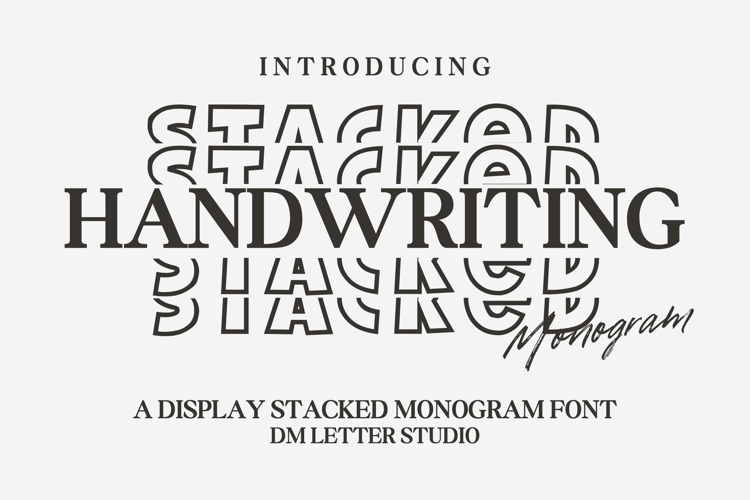
Handwriting Stacked Monogram Font
Handwriting Stacked Monogram – Whimsical & Personal Monogram Font
Handwriting Stacked Monogram is a delightful handwritten monogram font featuring a vertically stacked layout for a fresh and contemporary twist. Combining the charm of casual penmanship with a stylish stacked structure, it’s perfect for personalized branding, stationery, initials-based designs, journaling, and monogram crafts. Its warm, hand-crafted aesthetic adds a personal and friendly touch to every project.
Features:
Stacked Handwritten Style: A unique layout that aligns characters vertically for a modern monogram look.
Friendly & Playful Look: Combines casual charm with clean structure for creative versatility.